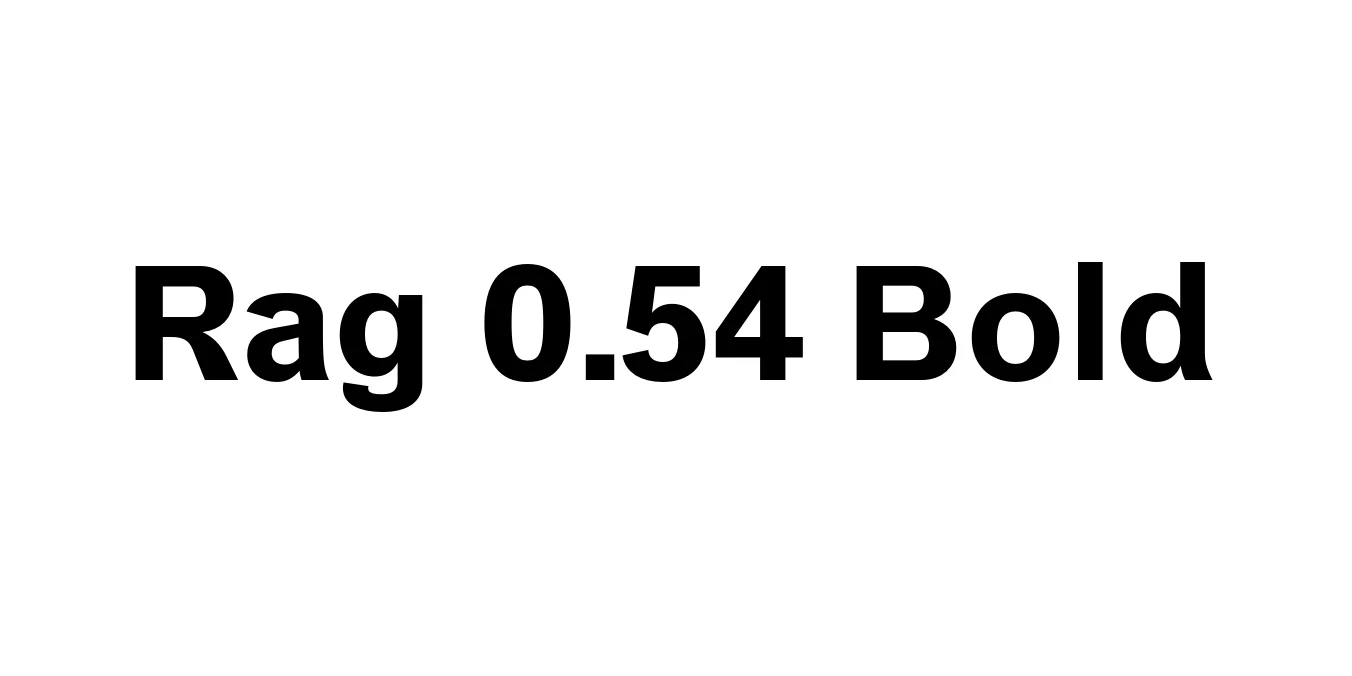
Rag 0.54 Bold
Designed by Rag Type
| Category | Sans-Serif / Display |
| Designer | Rag Type |
Rag 0.54 Bold is a striking display typeface that blends industrial grit with modern geometric precision. Developed as part of a series exploring the intersection of brutalist architecture and digital typography, this font features heavy, unyielding strokes and tight apertures that command immediate attention. Its design philosophy centers on high-impact legibility, making it a favorite for designers who want to move beyond traditional, polished neo-grotesques toward something more raw and authentic.
Historically, the Rag 0.54 Bold variant has been utilized in urban-focused graphic design and experimental editorial layouts. It provides a solid typographic foundation for projects that require a sense of permanence and strength. With its wide stance and bold presence, it excels in large-format printing and high-resolution digital displays, ensuring that every character stands out with a distinct, authoritative voice.
Rag 0.54 Bold Best Uses
Perfect for high-impact editorial titles and large-scale posters.
Excellent for creating powerful logos and bold corporate identities.
Widely used in apparel design for graphic tees and merchandise.
Ideal for hero sections and call-to-action buttons that need to stand out.